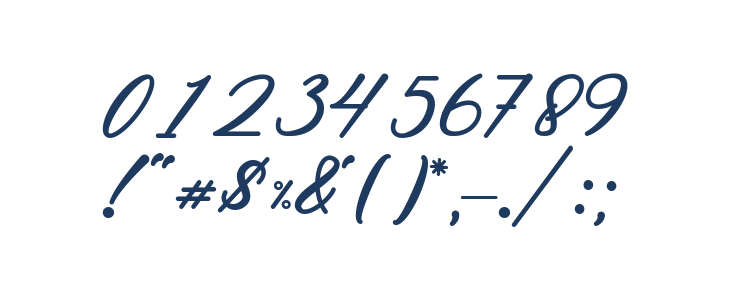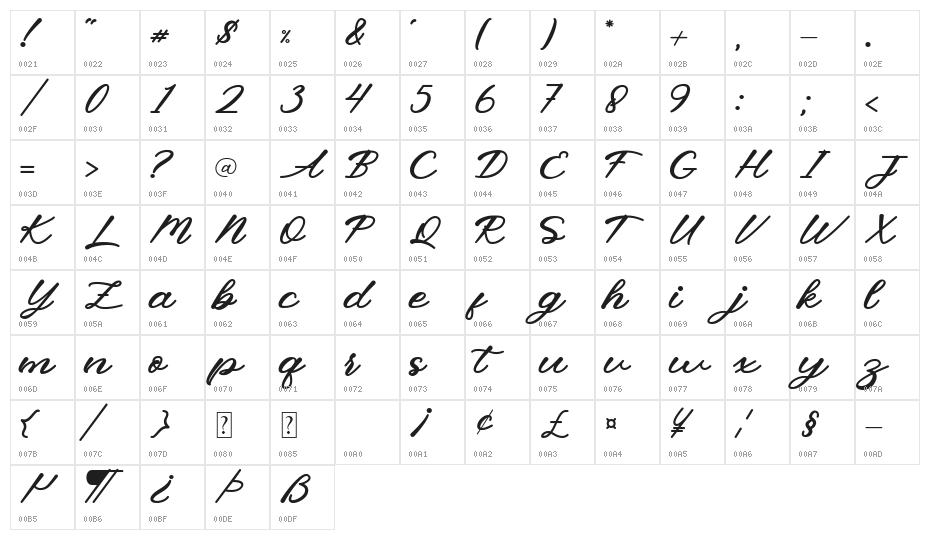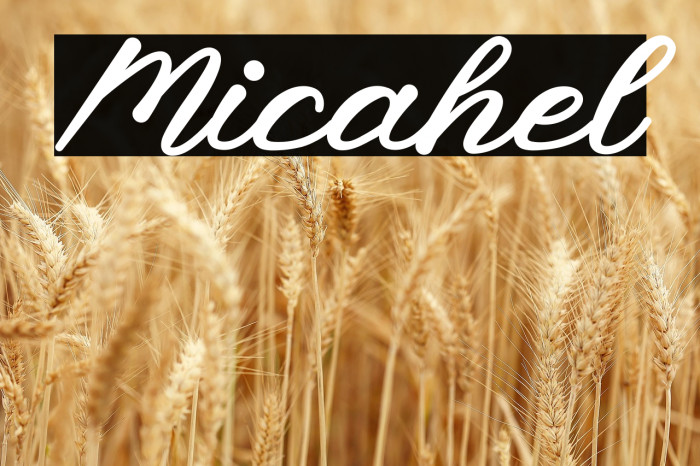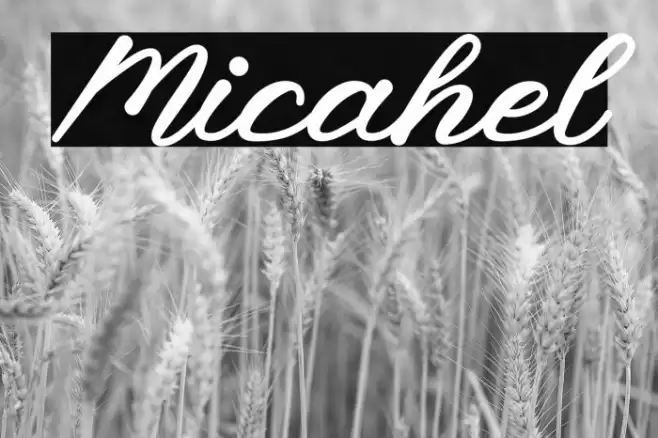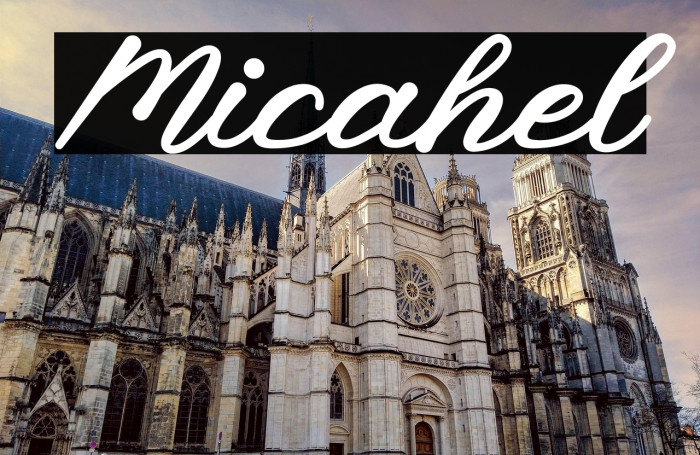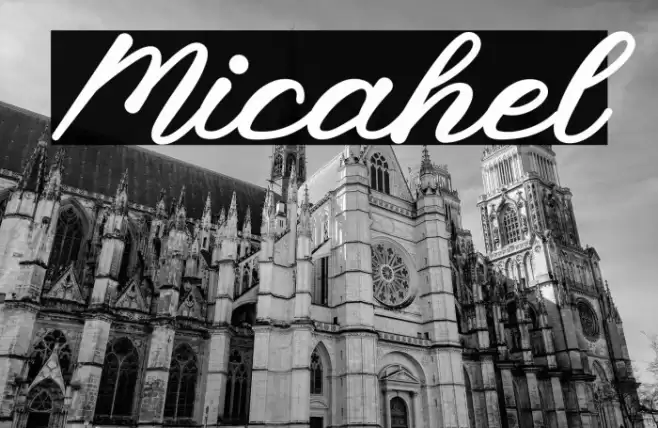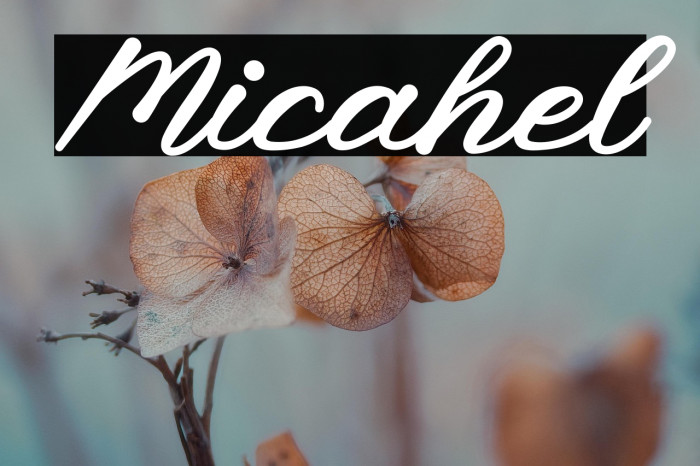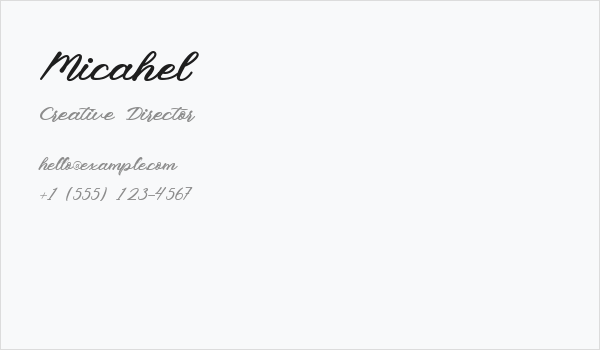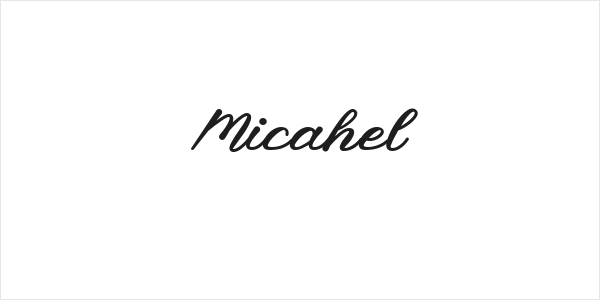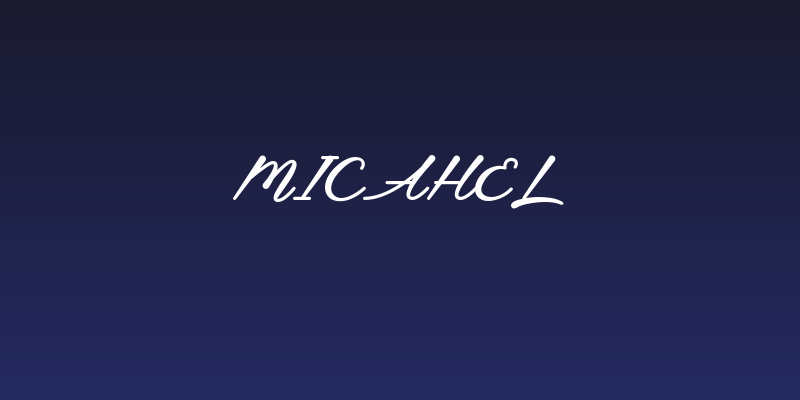
Micahel Font
Micahel Description
This font features a classic script style with elegant, flowing lines that mimic the fluidity of cursive handwriting. The uppercase letters are slightly more ornate, with sweeping curves and loops that add a touch of sophistication. The lowercase letters maintain a consistent flow, enhancing readability while preserving the decorative nature of the script. Numbers and special characters are designed to match the overall style, ensuring a cohesive look across all text elements. The font's smooth curves and balanced proportions make it suitable for a variety of design projects.